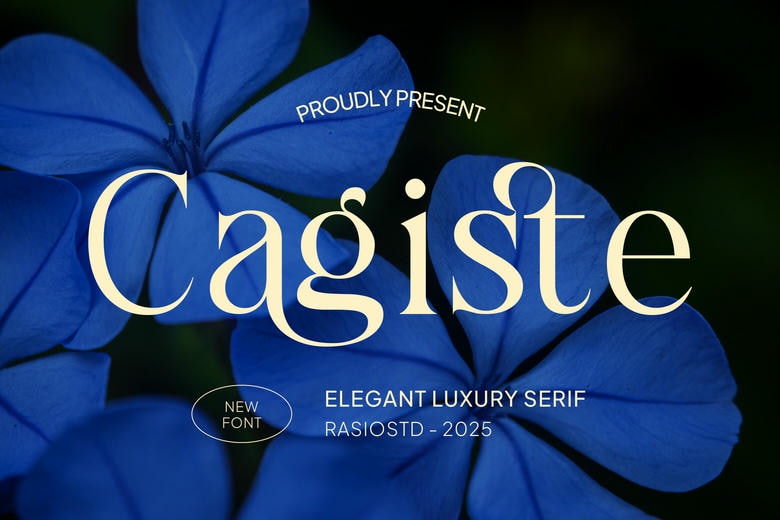
Cagiste Font
Cagiste is a luxurious and graceful serif typeface that is designed to add sophistication and modern-day elegance to modern design. Its elegant serif type is perfect in fashion magazines, high-end branding, beauty packaging, magazine headline, high-end marketing, and high-end visual identity.
Cagiste Serif Font